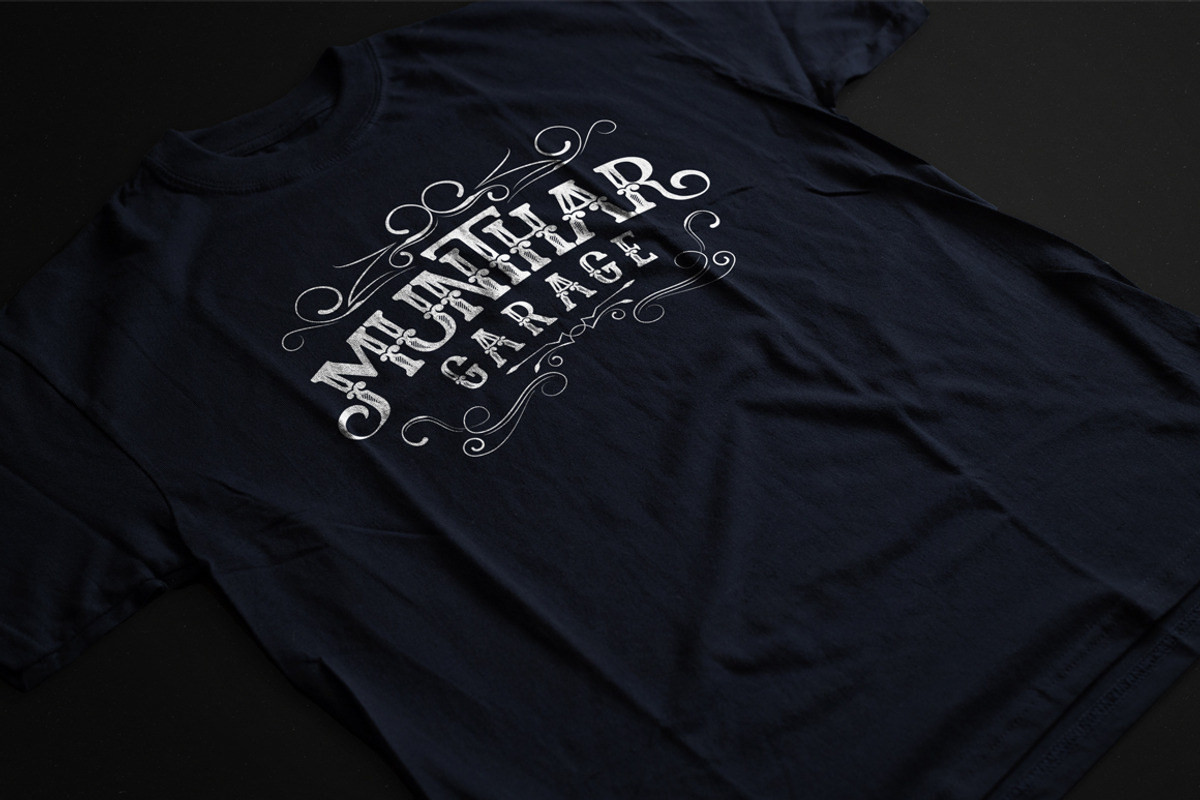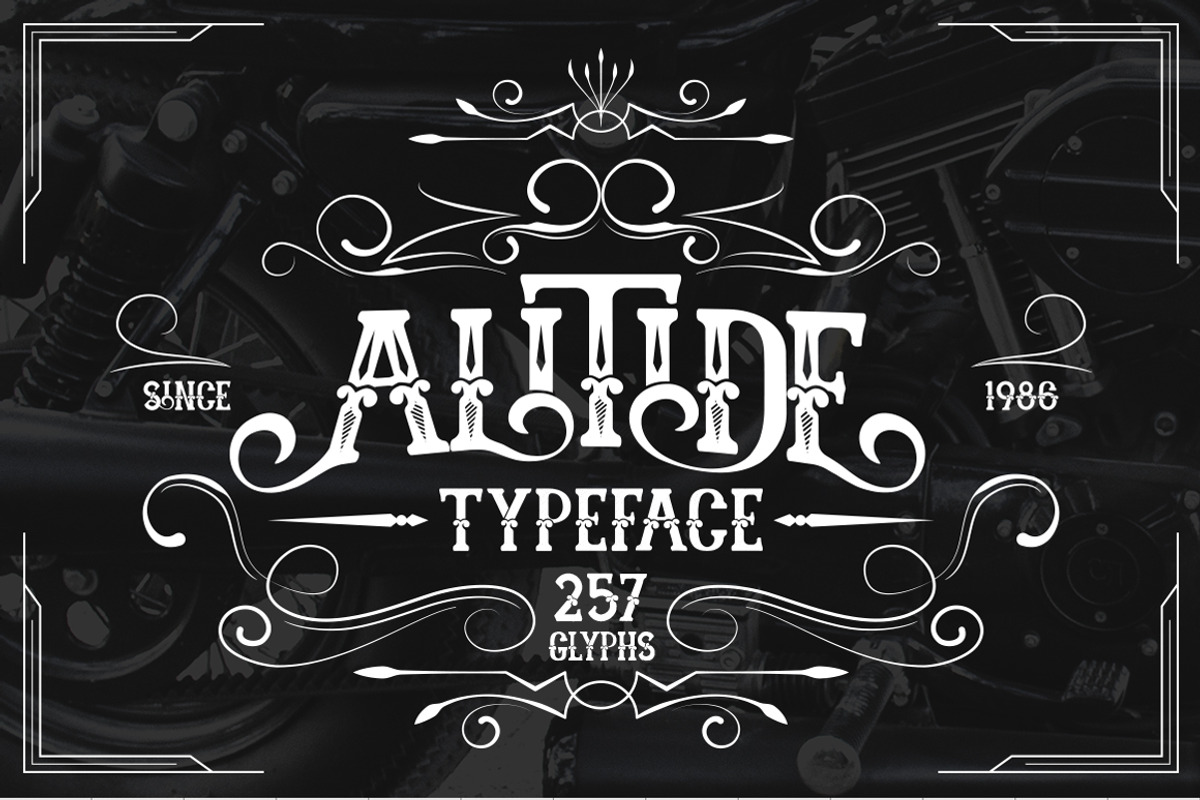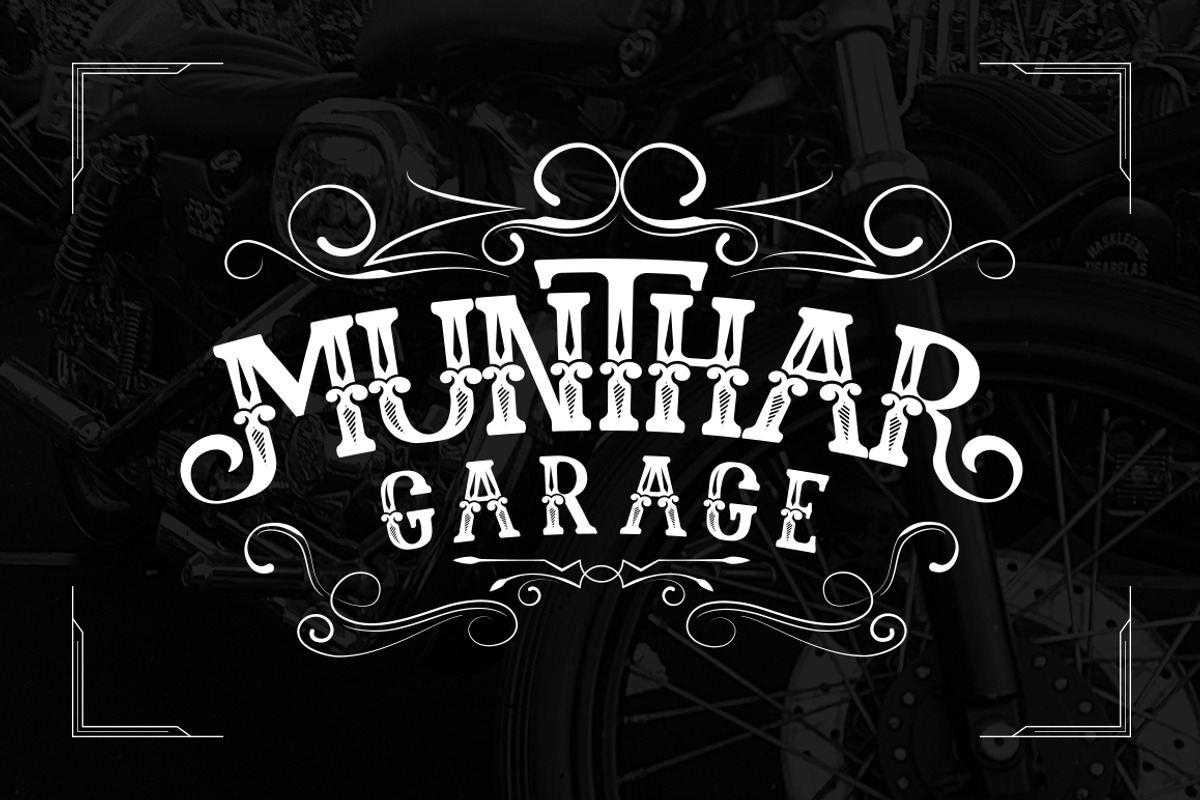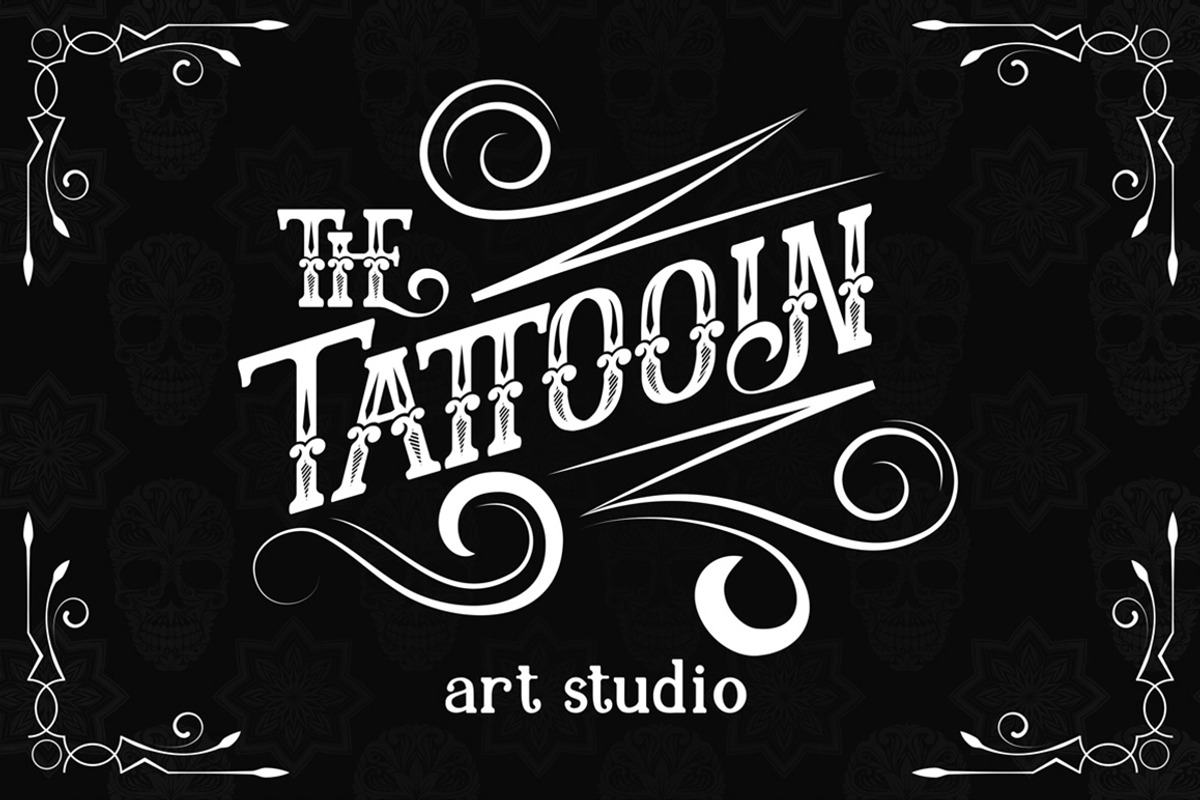
ALITIDE Typeface
ALITIDE Typeface by alit design is a font selected for branding, posters, packaging, typography.
- OpenType features with Stylistic Alternates.
Why ALITIDE Typeface is worth a look
ALITIDE Typeface by alit design fits naturally into Branding, posters, packaging, typography.